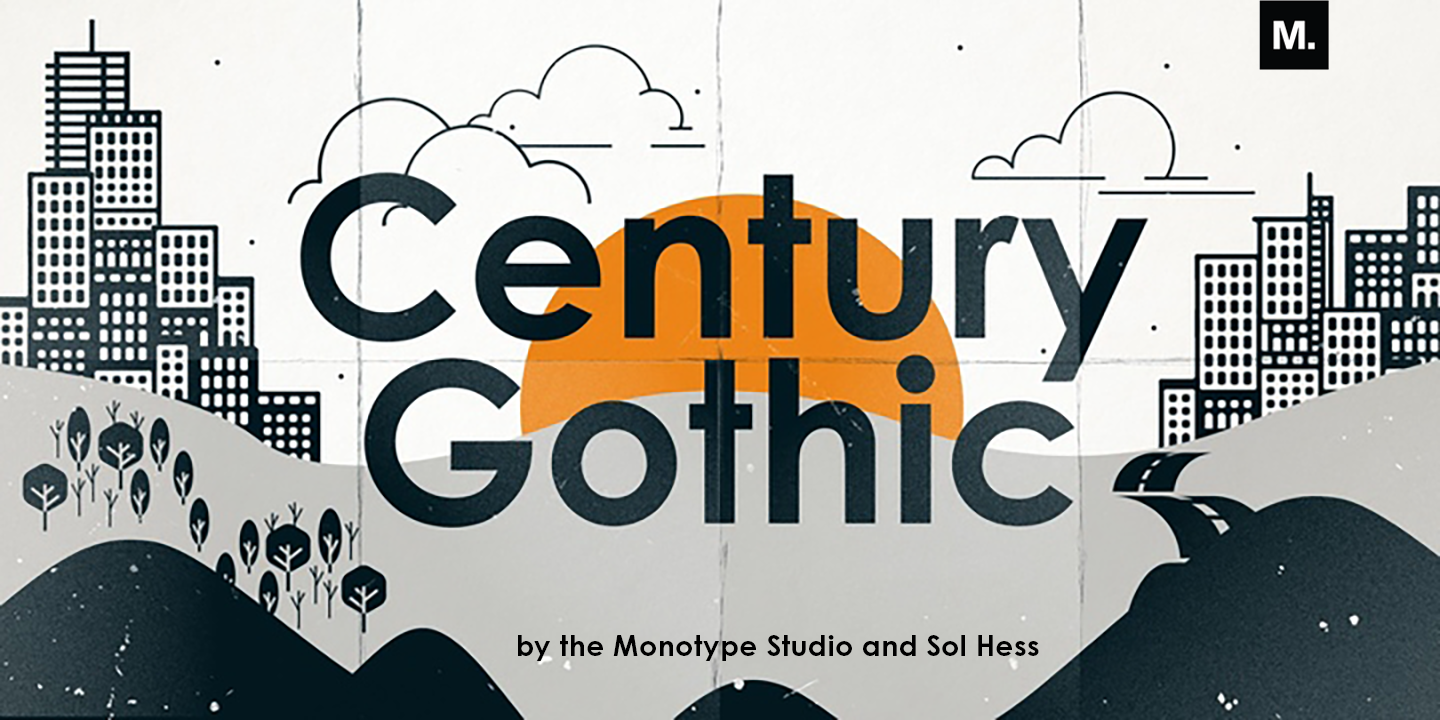
The Century Gothic Font excels in various design applications including clean corporate branding, modern business communications, professional presentation design, contemporary website typography, sleek architectural signage, minimalist poster layouts, tech industry marketing, educational materials, clean editorial design, and sophisticated brand identities that demand geometric clarity and timeless professional appeal.
What makes the Century Gothic Font exciting is its perfect synthesis of geometric modernism with practical functionality that creates exceptionally readable typography suitable for both digital and print applications. This typeface demonstrates masterful balance between contemporary aesthetics and classical proportions, featuring clean geometric letterforms that maintain excellent legibility while projecting confidence and professional sophistication. The font's versatile character makes it ideal for organizations seeking reliable typography that communicates competence, clarity, and forward-thinking vision across all communication platforms.
The Century Gothic Font family typically includes comprehensive weight variations from regular to bold, often featuring corresponding italic styles and extended character sets optimized for multilingual business applications. These family options may include condensed variants, numerical sets, and professional symbols that enhance the font's utility for corporate communications, ensuring consistent visual performance across diverse business contexts and technical requirements.
Business professionals and corporate brand managers consistently choose Century Gothic Font Free Download for projects requiring dependable, professional typography that performs excellently across traditional and digital media. This typeface delivers outstanding results in corporate communications, business presentations, and professional marketing where establishing credibility and maintaining clean visual hierarchy is essential for organizational success. The font's geometric clarity makes it particularly effective for technical documentation and educational materials. Download Century Gothic Font Free Download today to access this reliable typeface that elevates professional communications with its geometric precision and contemporary sophistication, creating compelling visual experiences that demonstrate organizational competence and modern business acumen while maintaining exceptional readability standards.